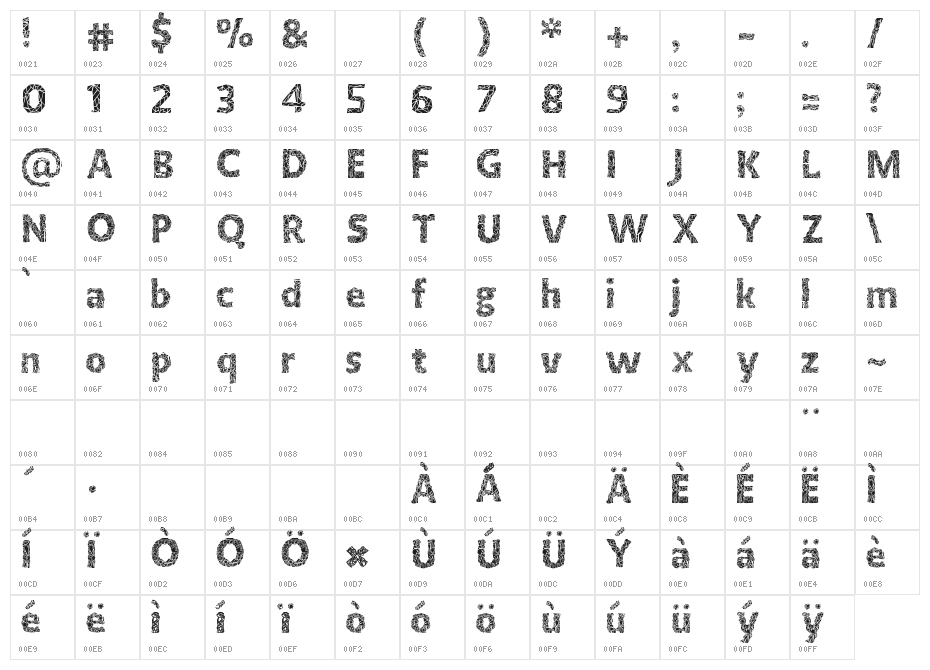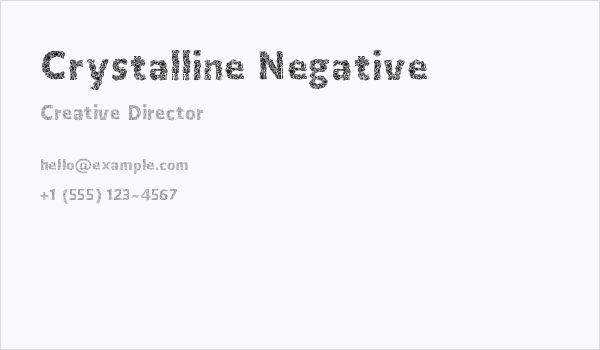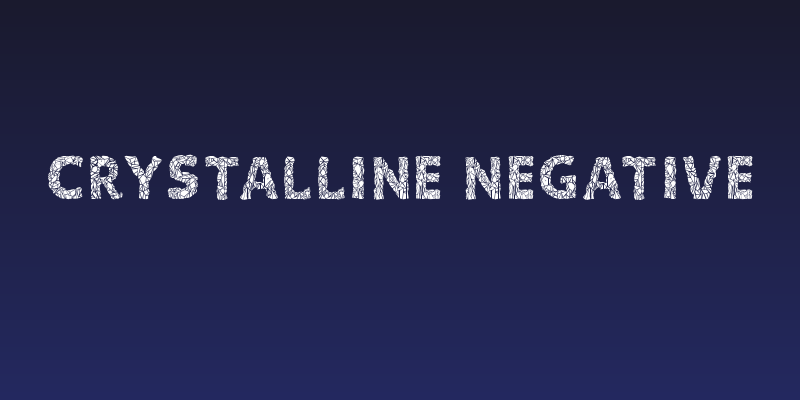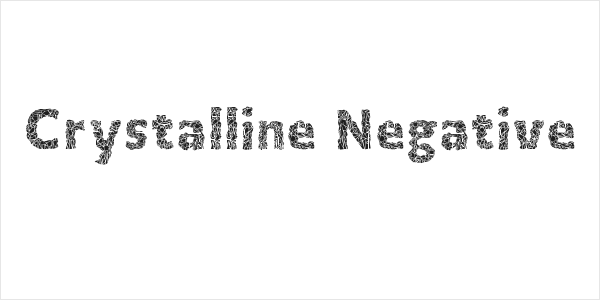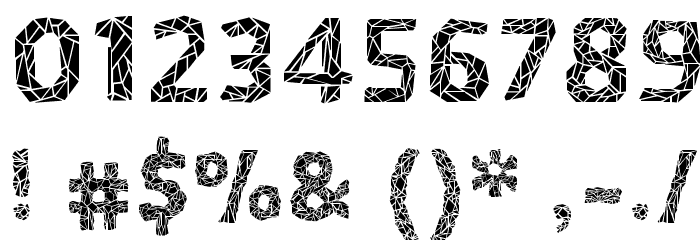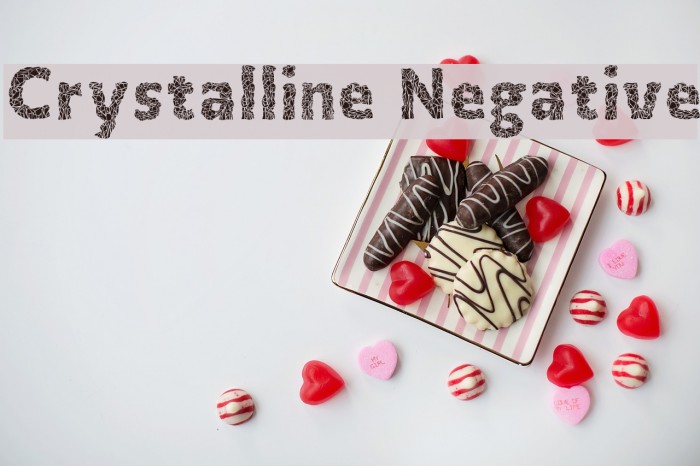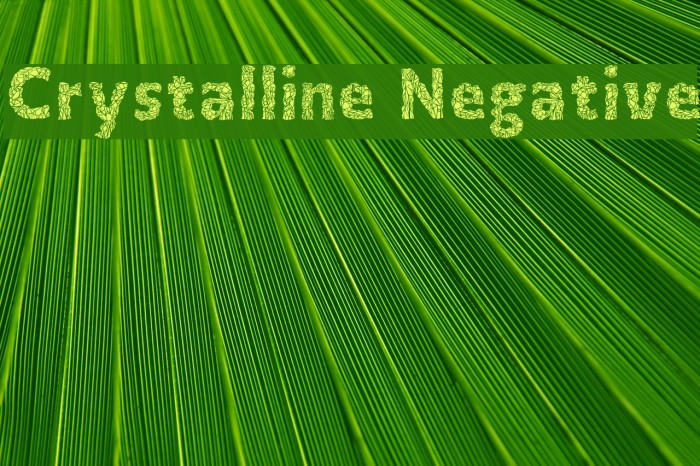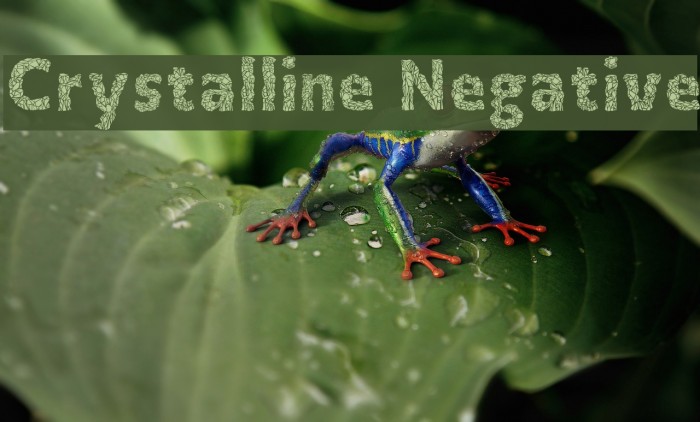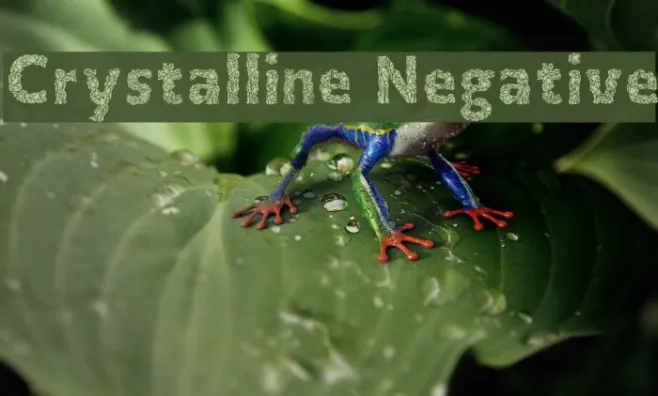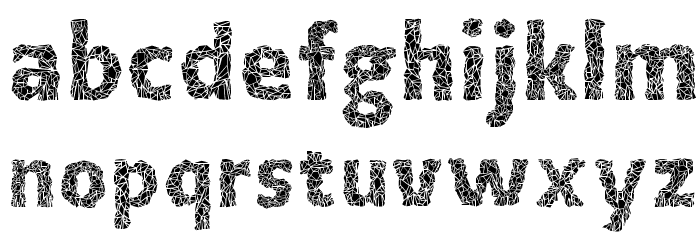
Crystalline Negative Font
Crystalline Negative Description
This font features a unique, crystalline texture that gives it a distinct and eye-catching appearance. The characters are composed of irregular, angular shapes that mimic the appearance of shattered glass or crystal formations. This design choice creates a dynamic and modern aesthetic, making it ideal for projects that require a bold and unconventional look. The uppercase and lowercase letters maintain a consistent style, with each character exhibiting a similar level of intricacy and detail. The numbers and special characters are equally well-crafted, ensuring a cohesive visual experience across all elements. The font's geometric nature lends itself well to creative and artistic applications, where a touch of sophistication and edginess is desired.
| Proposed Projects | Ideal for branding, album covers, posters, and any project seeking a modern, artistic flair. |